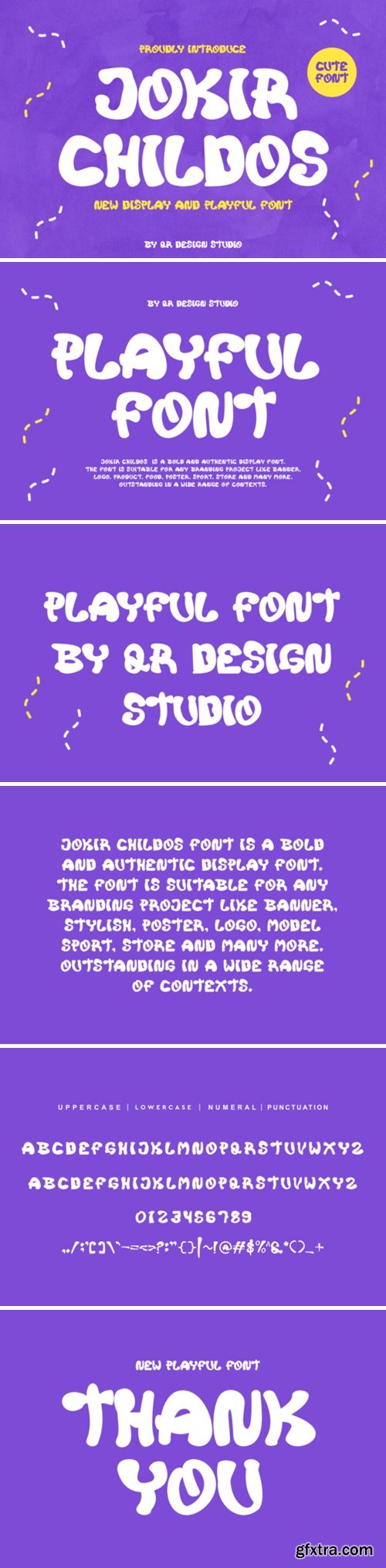
魔术师儿童字体
Jokir Childos is a cute and quirky display font. It will add an incredibly joyful touch to your designs. Add this beautiful display font to each of your creative ideas and notice how it makes them stand out!